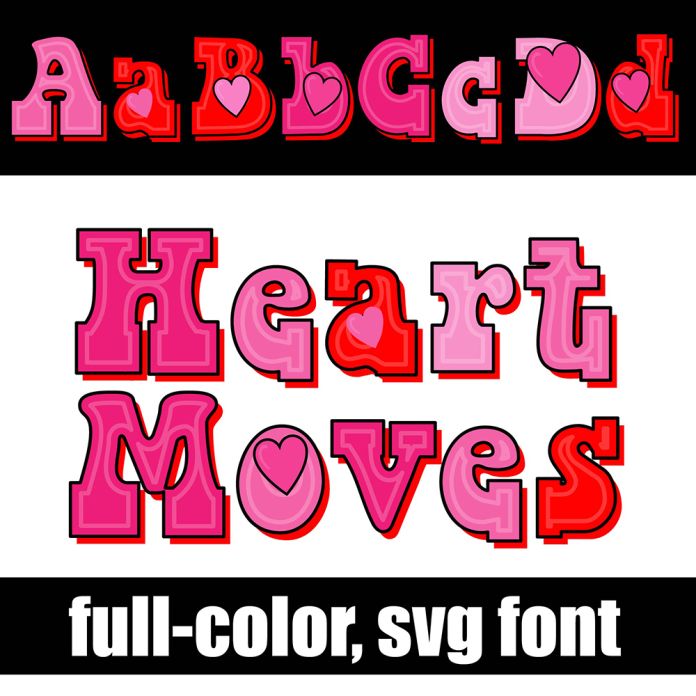
This retro font has a sixties feel with heavy serifs and hearts throughout. There is an alt case with an additional color of each letter. This font works best for titles, displays, posters and more. Please note color fonts will show as black in non compatible programs. This font type is compatible with Silhouette Studio.